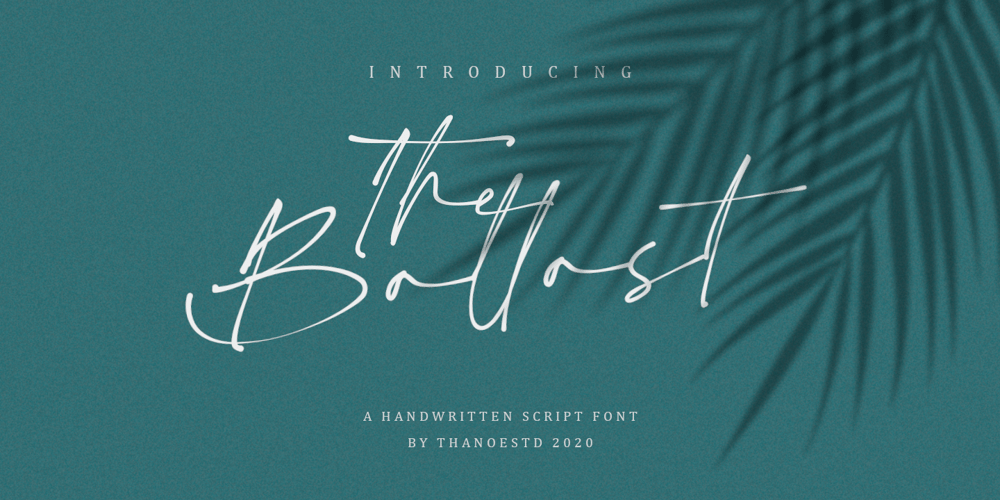
Ballast Font Family was designed by Taupiq Nuzuli and published by Thanoestd. Ballast contains 1 styles and family package options. Introducing the new “Ballast” font, an natural and unique handwritten font. For those of you who are needing a touch of natural and unique. It’s perfect for stationery, greeting cards, branding and much more!This font is PUA encoded which means you can access all of the great glyphs.